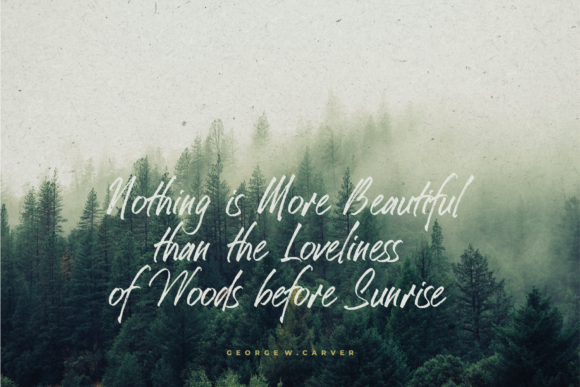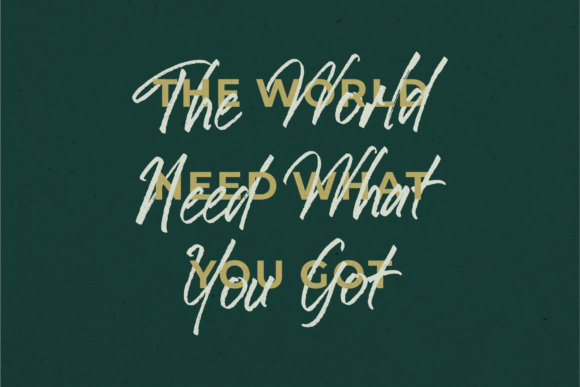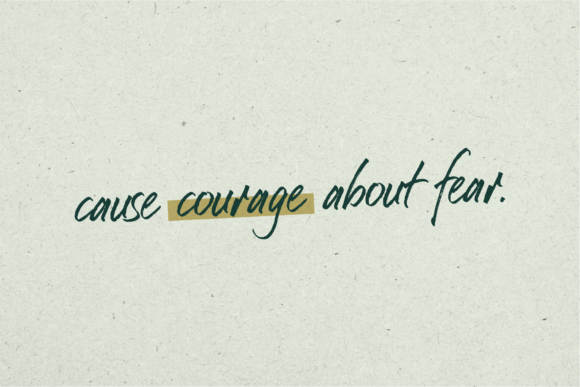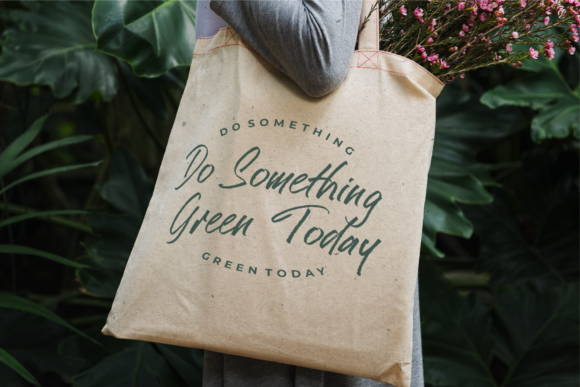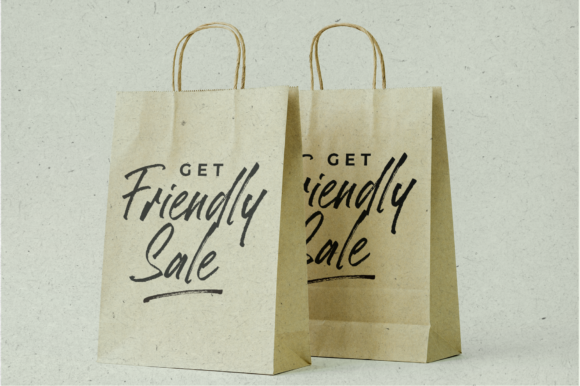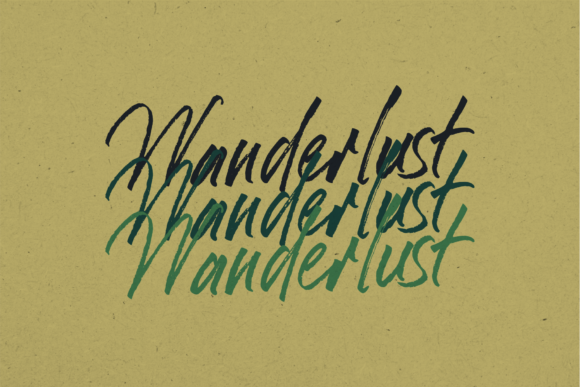
Introduction to Highest the Southy Font
Highest The Southy is a flowing handwritten font, described by an elegant touch, perfect for your favorite projects.
Key Features of Highest the Southy Font